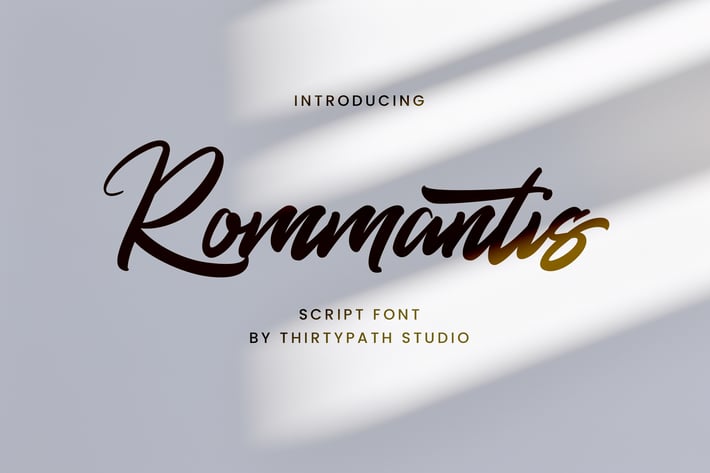
Rommantis Font
Hello...!! Great to see you :). Welcome to my new typeface. This is Rommantis Script font, the display handbrush lettering, simple and easy to create awesome lettering, just type your words and then you will immediately see the great results.
Rommantis Script, is handtype font, every single letters have been carefully crafted to make your text looks beautiful. With modern style this font will perfect for many different project ex: quotes, blog header, poster, wedding, branding, logo, fashion, apparel, letter, invitation, stationery, etc.
The Rommantis Script features:
Uppercase & lowercase
Stylistic alternatives
Ligatures
Initials & finals
International characters (Multilingual)
Punctuation & symbols